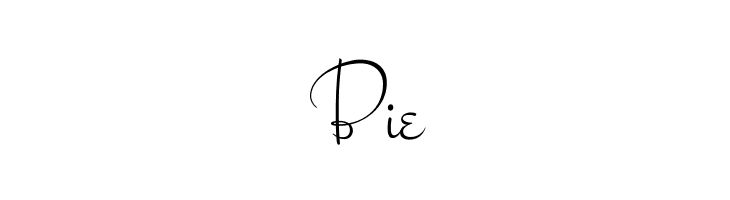
An elegant, flowing script font with smooth, cursive strokes.
An elegant, calligraphic font with high contrast and graceful curves.
An elegant and fluid script font with a dynamic, cursive style.
An elegant, flowing script font with interconnected letterforms and a sophisticated style.
An elegant script font with flowing, cursive strokes and a sophisticated appearance.
A charming and elegant script font with smooth, flowing lines.
A classic, elegant script font with flowing, connected letters.